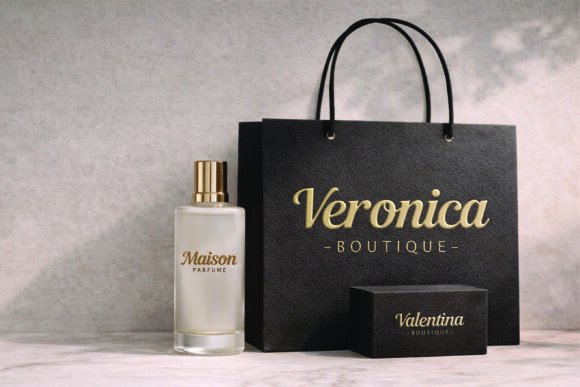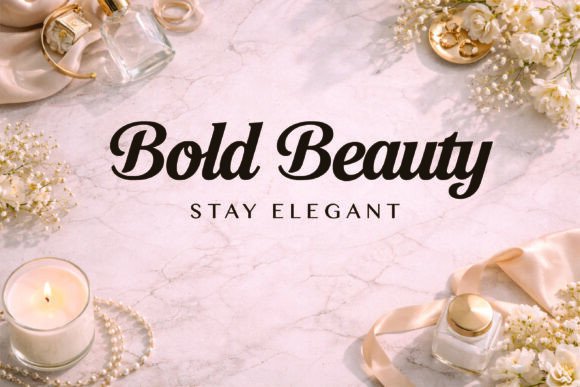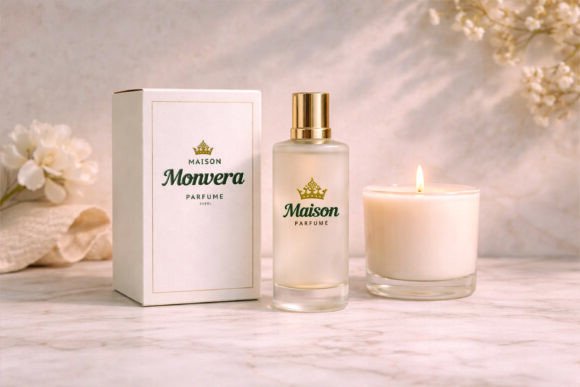
Introduction to Monvera Font
Have you ever been scrolling through your social media feed, and a beautiful, elegant font catches your eye? For designers, that moment of inspiration is a treasure trove of creative possibilities. And for those who crave a sophisticated, handwritten look, the Monvera Font is a game-changer. This stunning font combines smooth curves, confident strokes, and stylish letterforms to deliver a refined, timeless aesthetic that’s both modern and luxurious.
As a valuable resource for designers, the Monvera Font offers a high-quality design solution for a wide range of creative projects. From branding and logos to wedding invitations and product labels, its balanced rhythm and bold presence make it ideal for standout typography and elegant designs. Whether you’re working with a transparent background or a high-contrast layout, Monvera Font is sure to add a premium touch to your work.
Key Features of Monvera Font
- High-quality design resource ideal for creative projects, offering a unique and stylish touch.
- Monvera Font features a transparent background, allowing for seamless integration with any design or image.
- Designed with precision, this font offers a crisp and clear resolution of 300 DPI, ensuring high-quality output in various applications.
- Monvera Font is a versatile design element, suitable for a wide range of creative projects, from branding and logos to digital art and publications.
- With its sleek and modern aesthetic, Monvera Font is a valuable addition to any designer’s toolkit, offering endless possibilities for creative expression.
Honest Review: Monvera Font
I recently had the chance to experiment with the Monvera Font for a creative project, and I must say it was a great experience. The font is a high-quality design resource that offers a unique aesthetic for any project.
While the Monvera Font is a great design resource, there are a few limitations to keep in mind ⚠️:
- Some users may find the font to be too bold or overwhelming
Monvera Font is perfect for creating professional-looking graphics, social media posts, and marketing materials. It’s also great for use in presentations, reports, and other business documents.